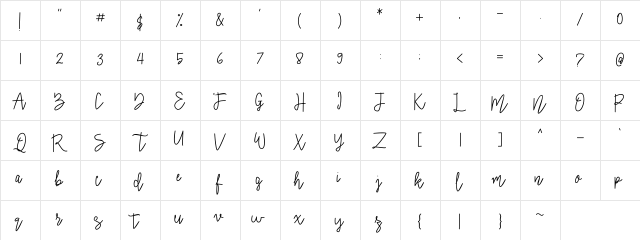
Signatural Regular Font Preview
Signatural Regular
Signatural Regular Font Details
Design Context for Signatural Typeface
Signatural is a composed and adaptable typeface that performs quietly and consistently across a wide range of design contexts.